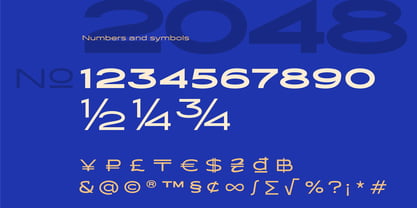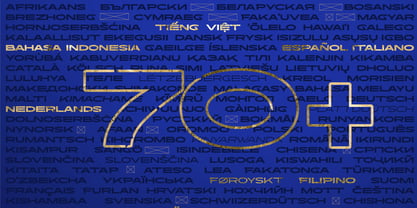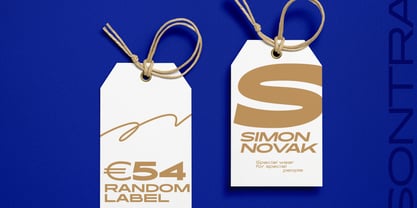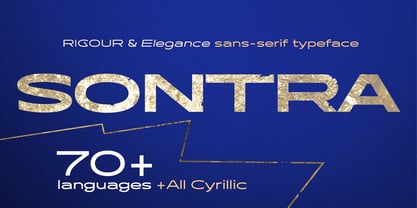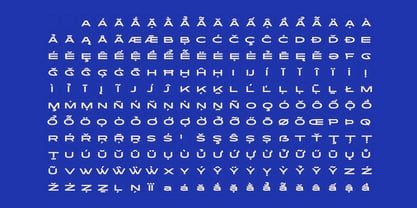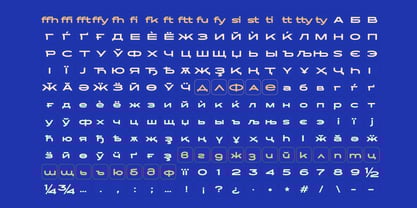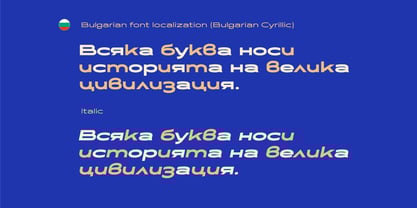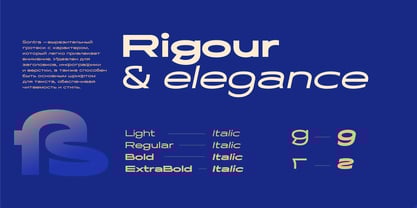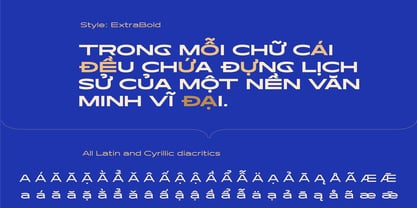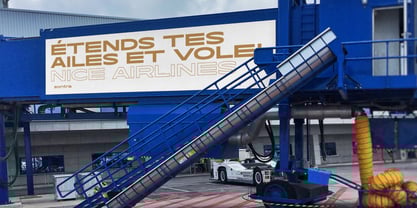
Sontra
by Daniel Shubin
The Sontra Font Family was designed by Daniel Shubin and published by Daniel Shubin. Sontra contains 12 styles and family package options. More about this family
Sontra -- Extended Sans Serif Typeface
Sontra is an elegant and modern extended sans serif font designed for branding, magazines, logos, and editorial layouts. With its clean geometry and minimalist style, it balances strict professionalism with a sporty and dynamic feel.
• 12 styles including 4 italics + 1 outline
• Multilingual support (70+ languages), full Cyrillic with Bulgarian localization
• 682 glyphs with standard & discretionary ligatures
• Perfect for editorial design, fashion branding, bold headlines, and timeless logos